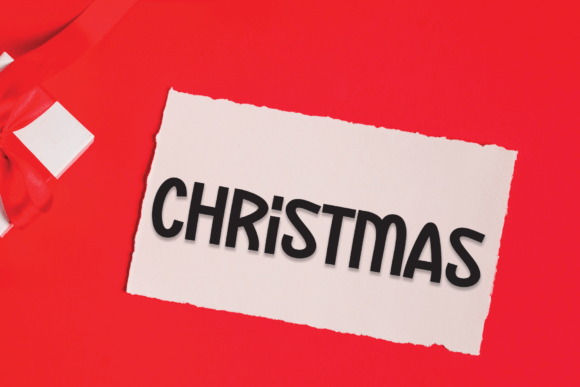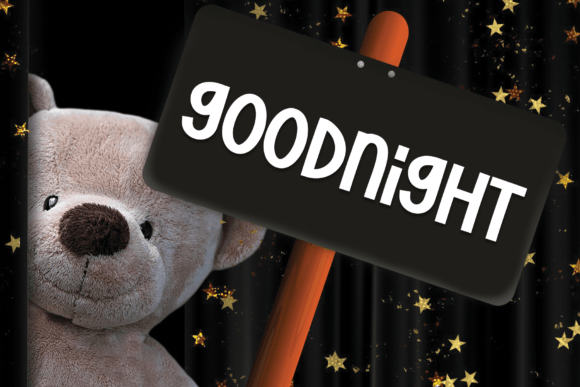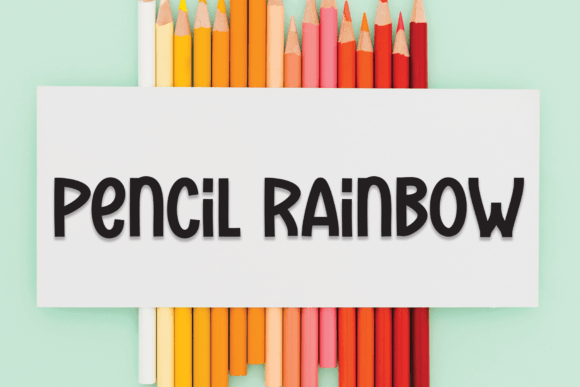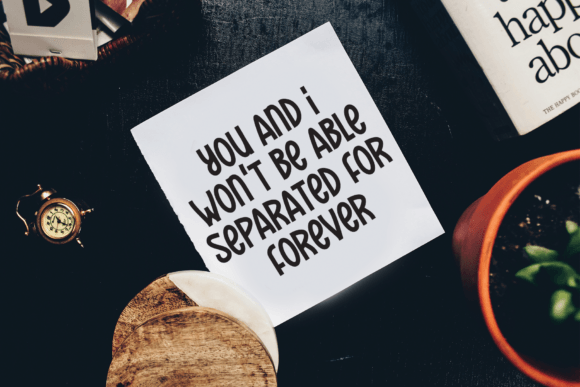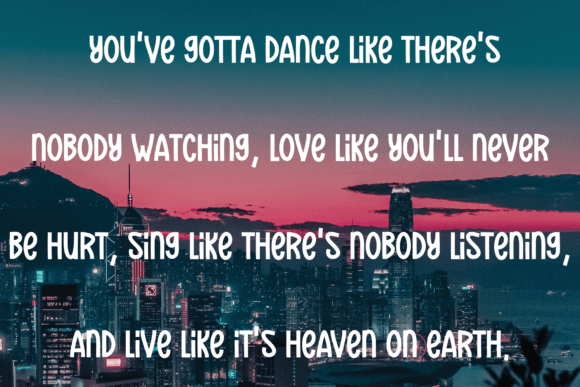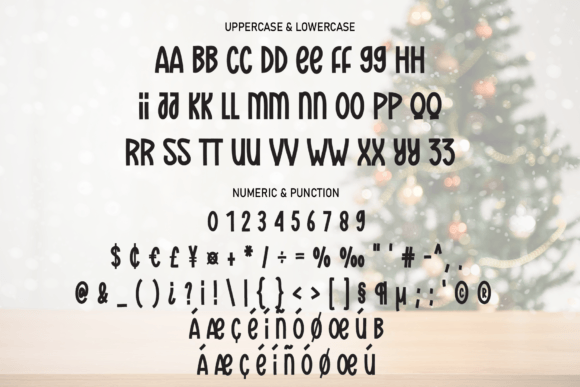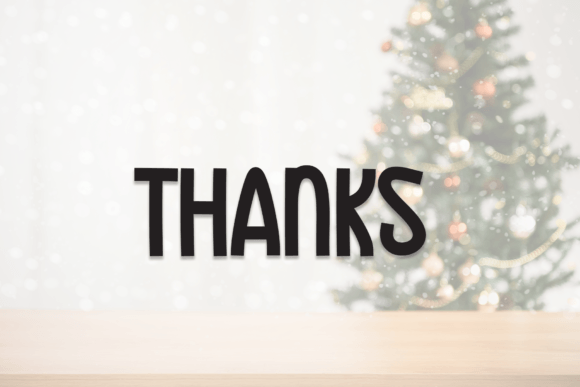
Our Christmas Font
Our Christmas Handwritten Font – Bold and Fun Typeface
The Our Christmas Handwritten Font is a playful and bold script designed to bring holiday spirit and charm to your projects. With its cheerful handwritten strokes and modern style, it delivers a unique personality that works beautifully across both print and digital designs. Whether you are creating invitations, social media content, or product packaging, this font adds festive appeal.
A Script Font with Holiday Cheer
The Our Christmas Handwritten Font combines bold handwritten strokes with playful details. Its style makes it stand out in festive projects, while its clarity ensures it remains professional and easy to read. Because of this, it adapts well to personal crafts and commercial uses alike.
Perfect for Invitations and Posters
One of the best uses of the Our Christmas Handwritten Font is in greeting cards, wedding invitations, and posters. Its joyful strokes make every design feel warm and festive. At the same time, it works well for logos, product labels, and branding projects, giving them a creative handwritten charm.
The Our Christmas Handwritten Font adapts perfectly to a wide variety of design needs. From advertisements and wall displays to packaging and social media posts, it provides a bold handwritten look that adds uniqueness to every project. As a result, it is a reliable typeface for designers who want festive style combined with usability.
Why Designers Love Our Christmas Font
Designers appreciate the Our Christmas HandwrittenFont because it blends playful boldness with practicality. Its cheerful handwritten details bring life to projects, while its readability ensures professional results. This makes it a must-have font for holiday-themed and creative work.